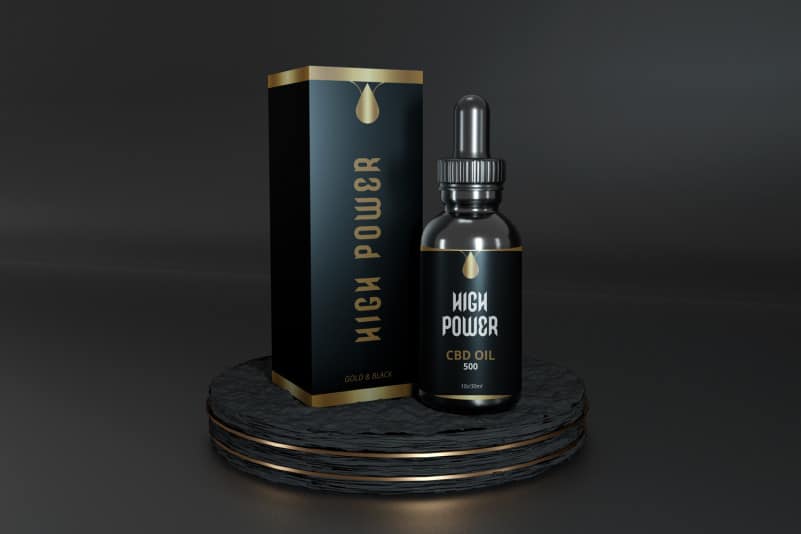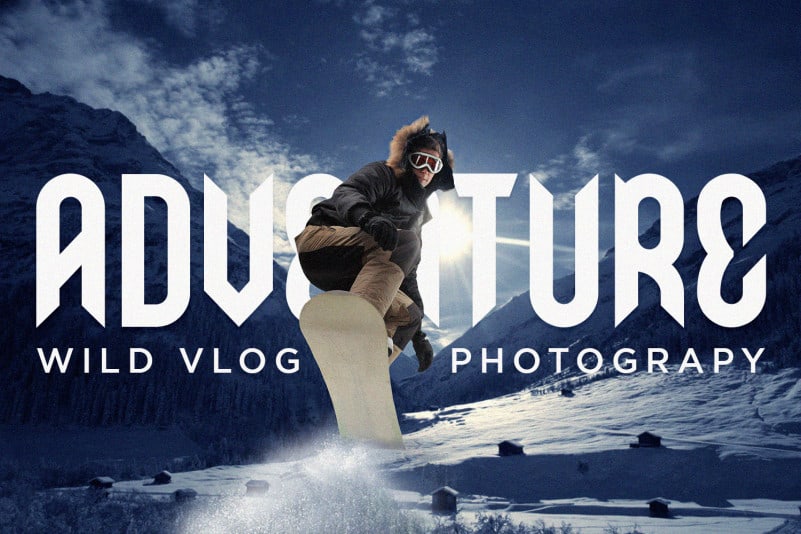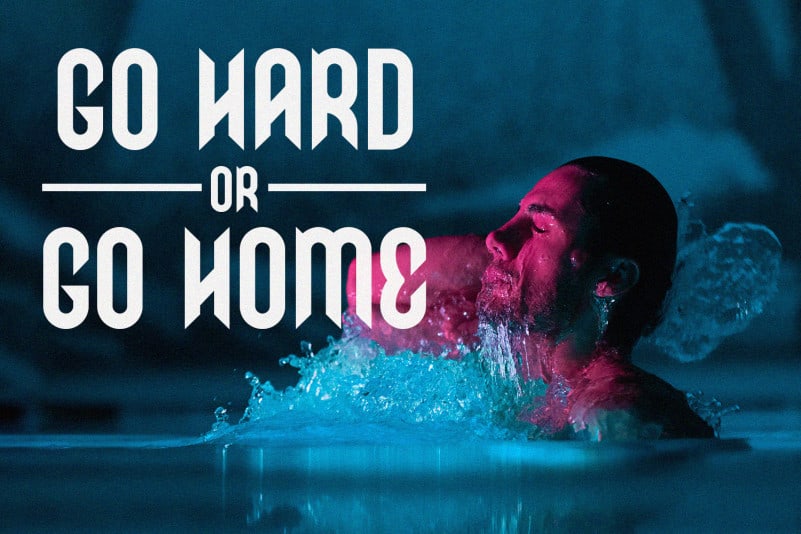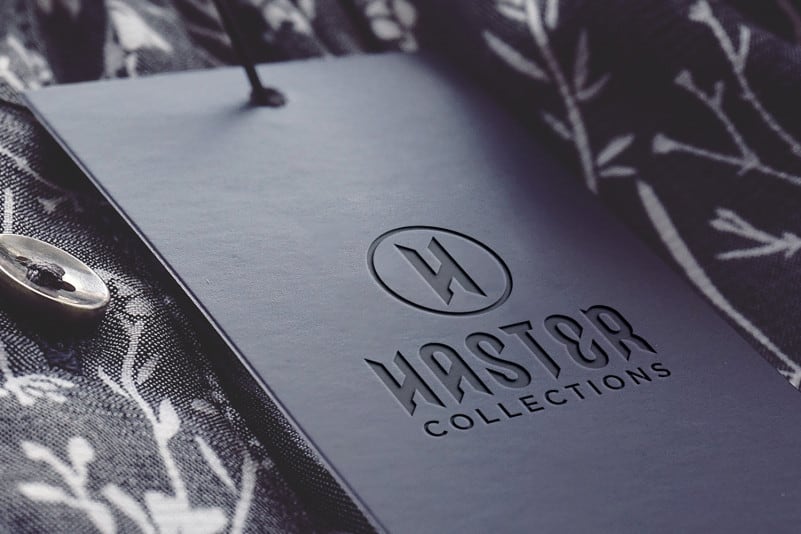
Haster Font
Haster Display Font
This is a stunning display Font font with authentic and casual feels. Haster – Display Font will be perfectly used for Branding, Logo Design, Lettering, Logotype, Clothing, Poster, magazine, packaging, posters, shopping bags, t-shirts, book covers, photography, special events and other design project.